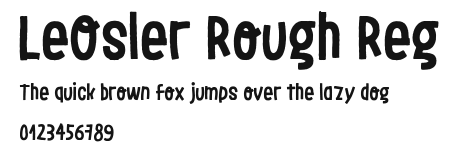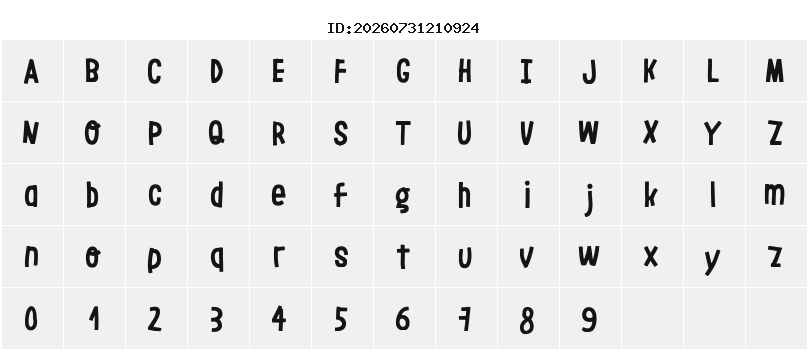
• Font Name: LeOsler Rough Reg
• Font Style: Rough Regular
• Designer: Julia Martinez Diana, Antipixel
About LeOsler Rough Reg.ttf
LeOsler Rough Reg.ttf is a modern, elegant sans-serif font designed for ultimate readability and visual harmony. Perfect for branding, headlines, web design, and print materials.